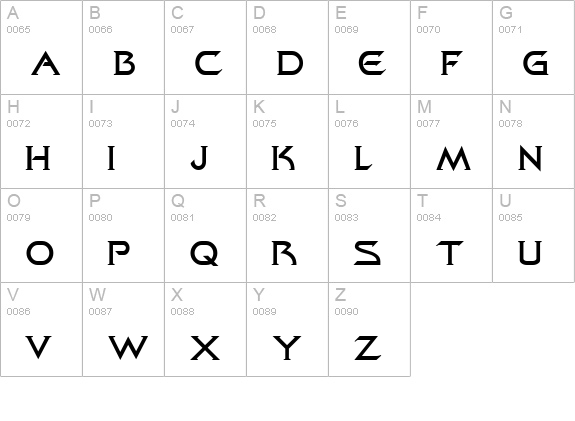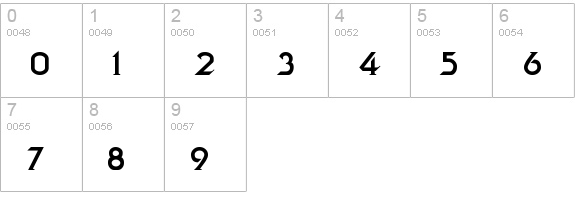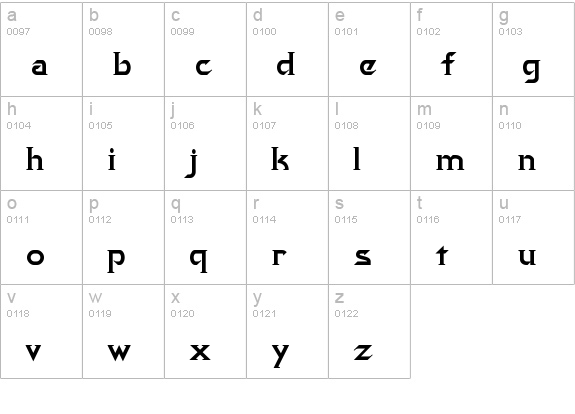
Federation Classic Movie Font Details
The Federation Classic Movie font is a stunning and elegant typeface that evokes the golden age of cinema. With its timeless charm and sophisticated appeal, this font is perfect for adding a touch of vintage glamour to your designs. The classic letterforms exude a sense of nostalgia and evoke memories of old Hollywood films. The Federation Classic Movie font is versatile and can be used for a variety of design projects, from movie posters to logo designs to invitations. Its clean lines and graceful curves make it a standout choice for any creative endeavor. Best of all, the Federation Classic Movie font is available for free download at FontsMarket.com. So you can bring a touch of old-school glamour to your projects without breaking the bank. Don't miss out on this timeless font that will add a touch of classic elegance to your designs.